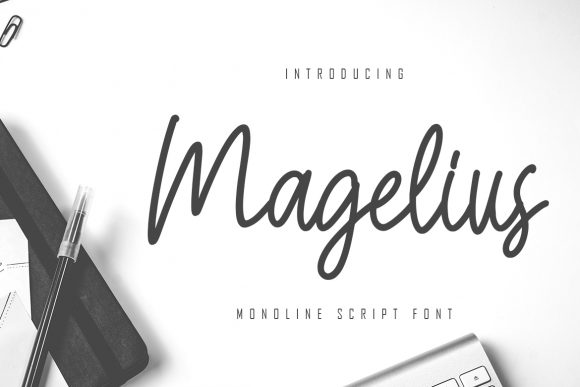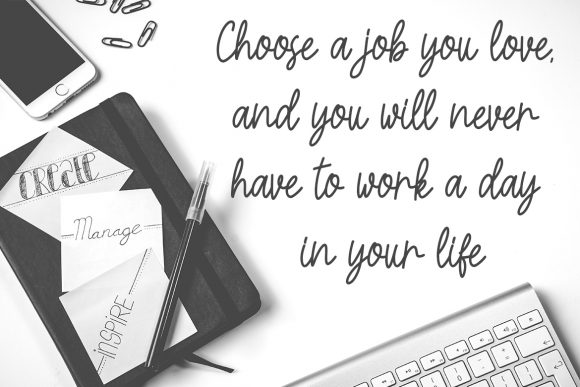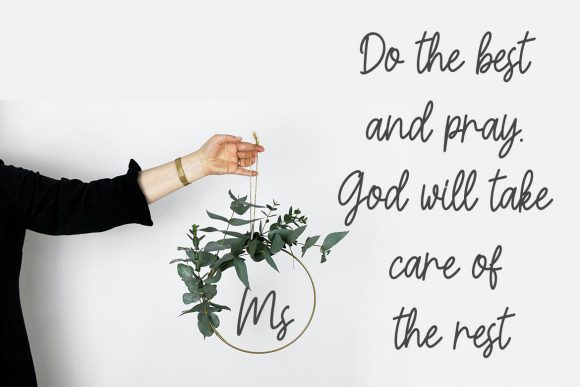
Magelius Font
About Magelius Font
Magelius is a delicate, elegant and flowing handwritten font. It has beautiful and well balanced characters and as a result, it matches a wide pool of designs.